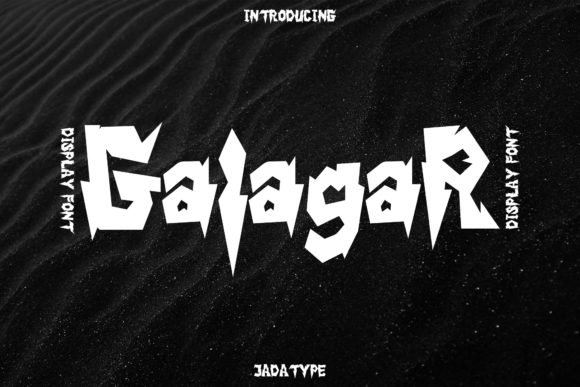
Journey into the realm of musical harmony with Galagar Font, a striking display font that strikes a perfect chord for your creative expressions. Designed by jadatype, this remarkable font family captivates with its robust letterforms, bestowing your designs with a powerful and distinct character.
Unleash your creativity and let Galagar Font orchestrate a symphony of visual appeal. Its strong and assertive strokes resonate with the very essence of rhythm and melody. Each letter dances and sways across the canvas, as if propelled by an unseen musical force.
Indulge in the visual delights of Galagar Font, where every glyph is a masterpiece, meticulously crafted to evoke the emotions and energy of music. Its bold and confident presence commands attention, transforming ordinary words into mesmerizing compositions.
As a designer or artist, you are the maestro, and Galagar Font is your instrument, ready to harmonize with your creative vision. Whether you're designing a music festival poster, an album cover that exudes rhythm, or a T-shirt that rocks with style, Galagar Font will effortlessly elevate your work to new heights.
Picture the notes of a guitar, the beat of a drum, or the soaring melody of a violin, all visually represented through the strokes of Galagar Font. Its energy is infectious, its character unforgettable. Elevate your designs to the level of a symphony, where every element dances in perfect harmony.
With Galagar Font, your creations will resonate with the very soul of music. Its versatility knows no bounds, adapting seamlessly to various projects, from logos that command attention to invitations that sing with elegance. Each design will become a visual masterpiece, leaving an indelible mark on the hearts and minds of your audience.
So immerse yourself in the world of Galagar Font, where creativity and music intertwine, and let your designs take center stage, igniting a symphony of visual delight.